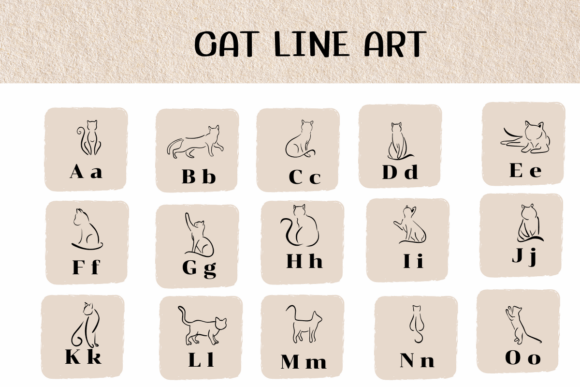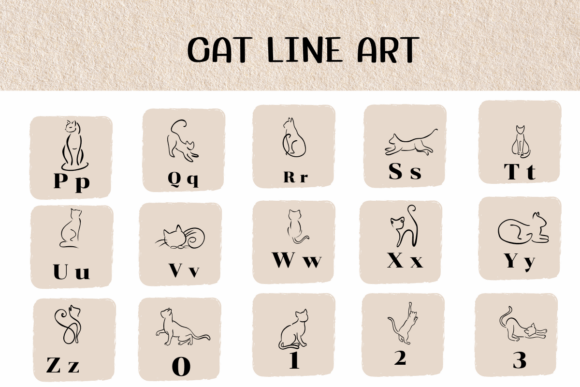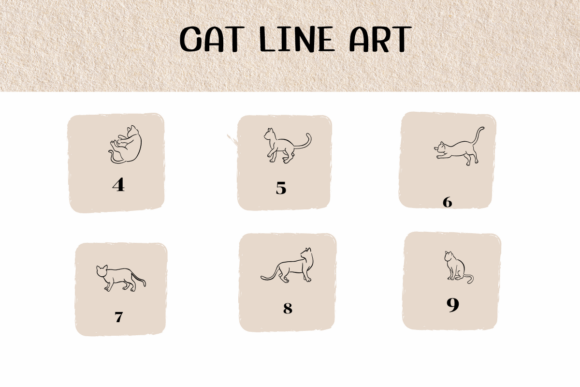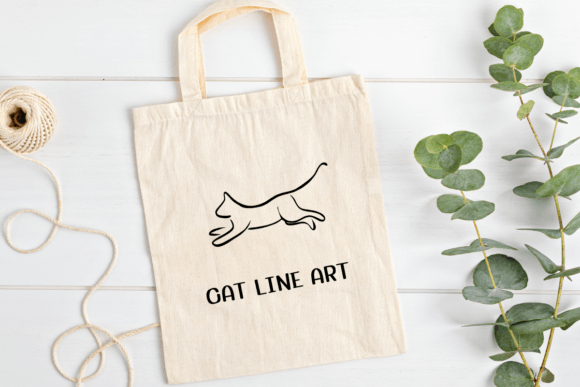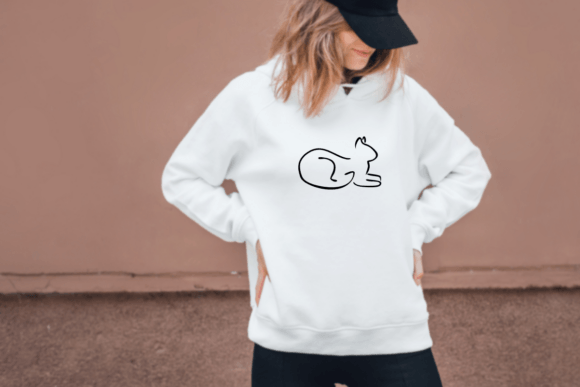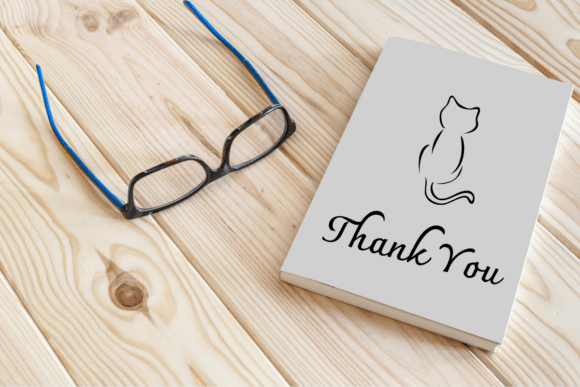
Introducing CAT LINE ART Font: The Purrfect Addition to Your Design Projects
Are you a designer, crafter, or DIY enthusiast looking for a fun and playful way to add some personality to your projects? Look no further than CAT LINE ART, a delightful dingbat font that’s filled with adorable cat designs. This charming font is perfect for crafts, cards, and any project that needs a touch of whimsy and humor.
What is CAT LINE ART Font?
CAT LINE ART is a unique dingbat font that features simple line drawings of cute cats. Each letter or symbol in the font is replaced with a distinct and adorable cat design, making it a great way to add some visual interest to your projects. Whether you’re creating greeting cards, scrapbook pages, or social media graphics, this font is sure to bring a smile to your audience’s faces.
Key Features of CAT LINE ART Font
- Adorable cat designs: Each letter or symbol in the font features a unique and cute cat design, making it perfect for cat lovers and enthusiasts.
- Simple line drawings: The font features simple line drawings, making it easy to use and versatile for various design projects.
- Fun and playful: CAT LINE ART font is perfect for adding a playful touch to any project, from crafts to cards and social media graphics.
- Perfect for designers and crafters: This font is ideal for designers, crafters, and DIY enthusiasts who want to add a personal touch to their projects.
Uses for CAT LINE ART Font
CAT LINE ART font is a versatile font that can be used in a variety of design projects, including:
- Crafts: Use the font to create personalized crafts, such as customized mugs, t-shirts, and tote bags.
- Cards: Add a playful touch to your greeting cards, invitations, and thank-you cards.
- Scrapbooking: Use the font to create fun and playful scrapbook pages that showcase your favorite memories.
- Social media graphics: Add some personality to your social media graphics, such as Facebook posts, Instagram stories, and Twitter headers.
Tips for Using CAT LINE ART Font
Here are some tips for getting the most out of CAT LINE ART font:
- Experiment with different colors: Try pairing the font with different colors and backgrounds to create a unique and eye-catching design.
- Mix and match: Combine CAT LINE ART font with other fonts and design elements to create a visually appealing design.
- Use it sparingly: Use the font sparingly to add a touch of whimsy to your design, rather than overwhelming the entire project.
| Font Name | Cat Line Art Font |
| Author | Ketsarin |
CAT LINE ART font is a fun and playful dingbat font that’s perfect for designers, crafters, and DIY enthusiasts. With its adorable cat designs and simple line drawings, this font is sure to add a touch of personality to any project. Whether you’re creating crafts, cards, or social media graphics, CAT LINE ART font is a great way to bring some humor and whimsy to your design. So why not give it a try and see how it can enhance your next project?